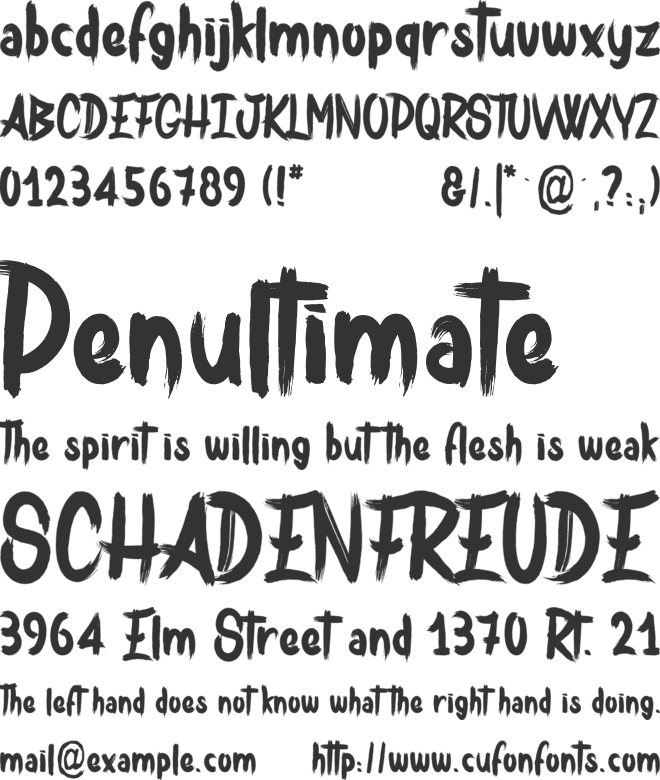
Scarrew Font
Introducing Scarrew: the uniquely striking font that flawlessly intertwines terror and charm to allow for bold and captivating presentations. With a distinctive horror-inspired design, Scarrew adds an alluring edge which perfectly complements everything from shirt designs to ceremonial scripts. Make a lasting impression and let your creation leap from the ordinary to extraordinary with Scarrew. This blend of spine-chilling elegance is distinct, playful, and allows its user to truly stand out with their creative endeavours. Compellingly refined yet powerfully impactful,